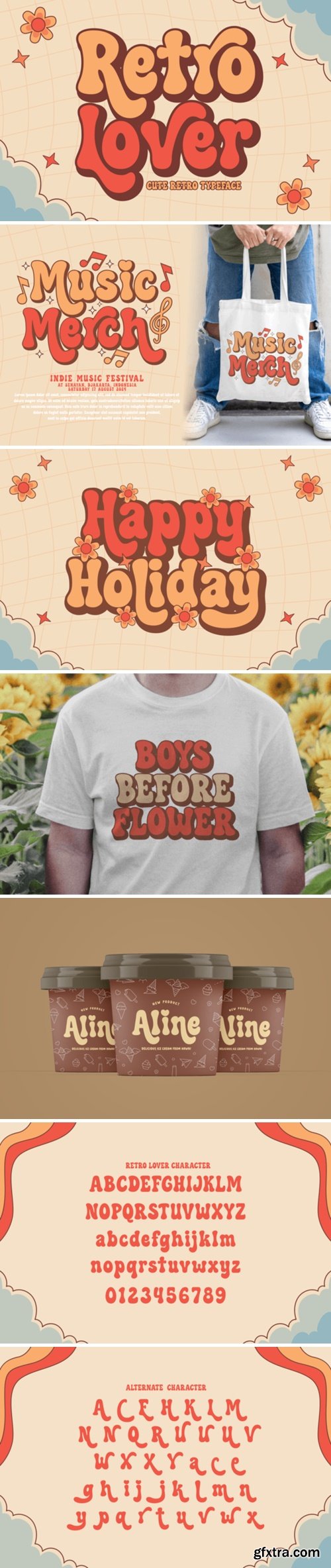
Retro Lover is an incredibly unique and retro display font. Masterfully designed to become a true favorite, this font has the potential to bring each of your creative ideas to the highest level!